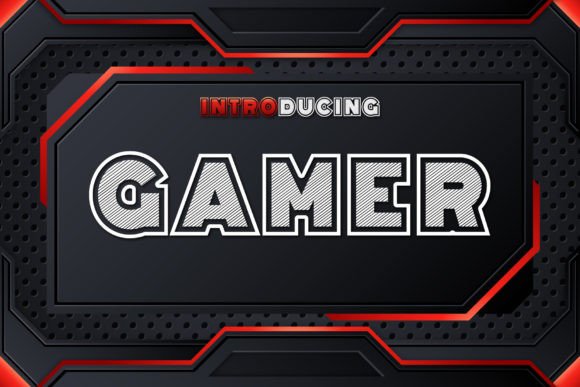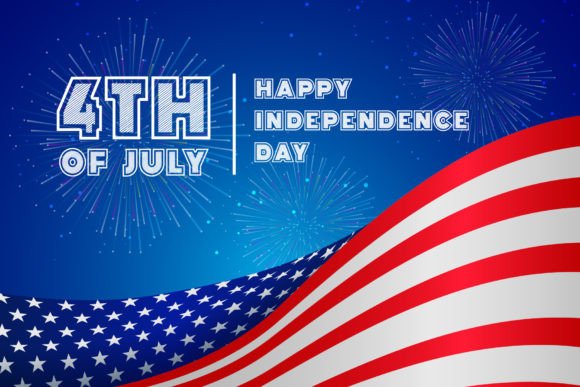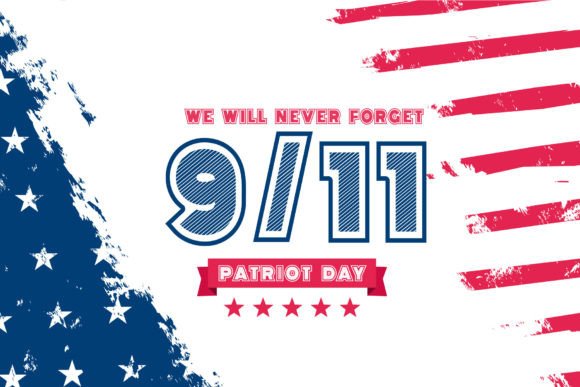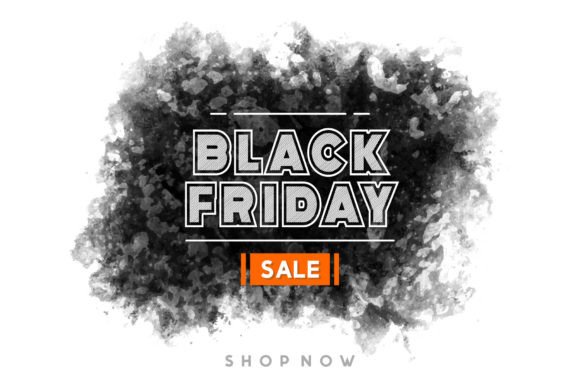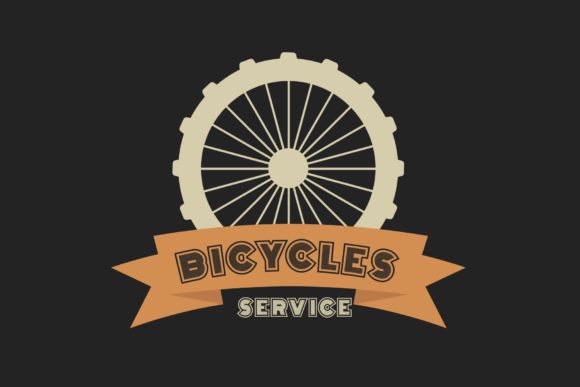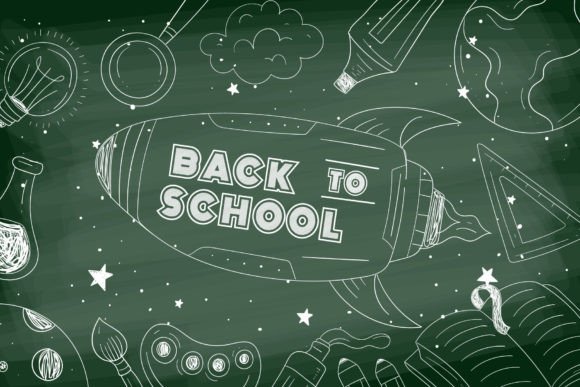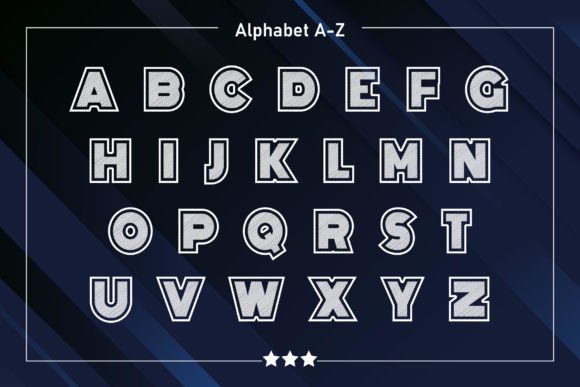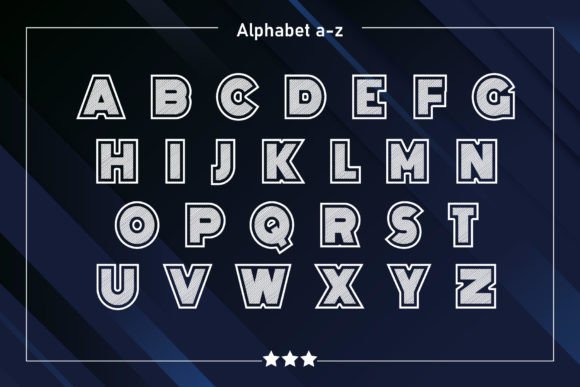
Gamer Font
Gamer Fonts is a strong and incredibly cool, Display font. No matter the topic, publications, logo, business cards, or printed on t-shirts, this font will look outstanding. this font will be an incredible asset to your fonts’ library, as it has the potential to elevate any creation.